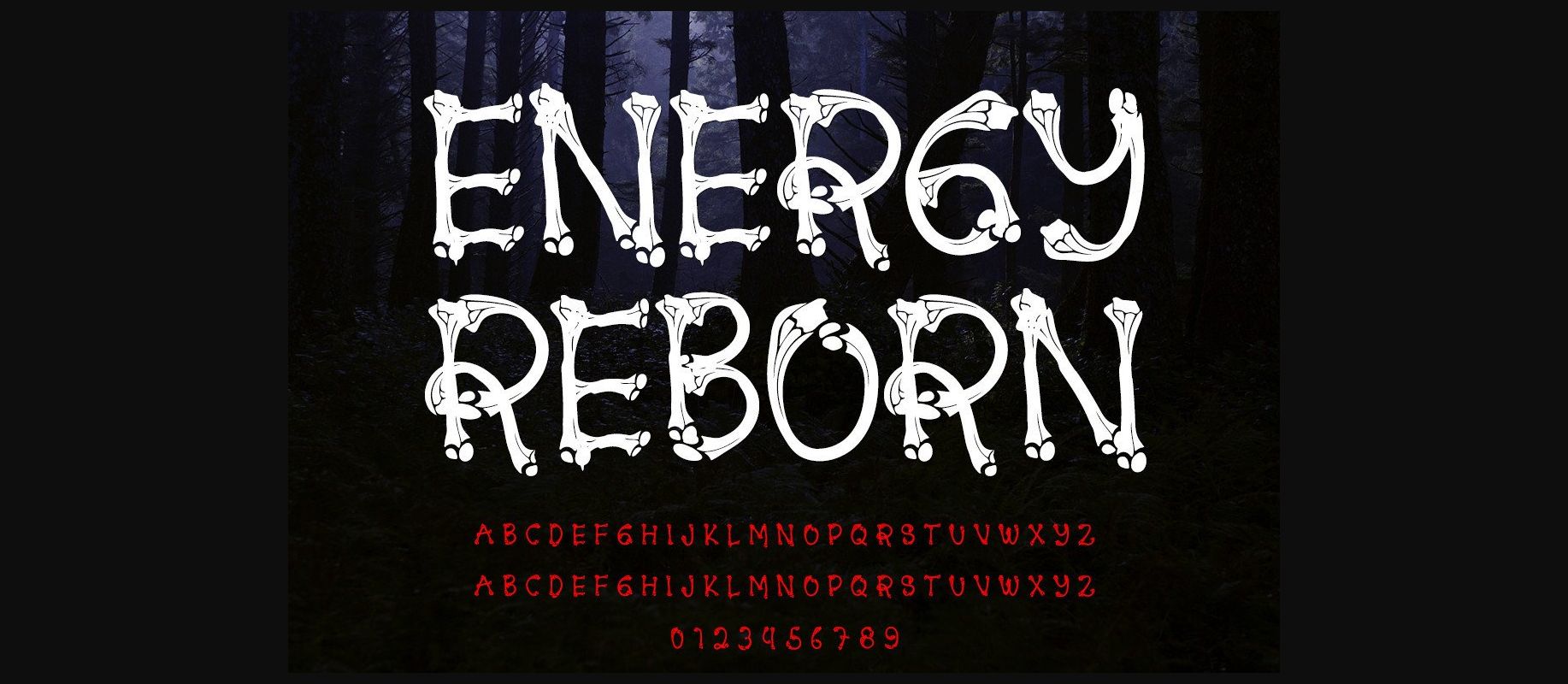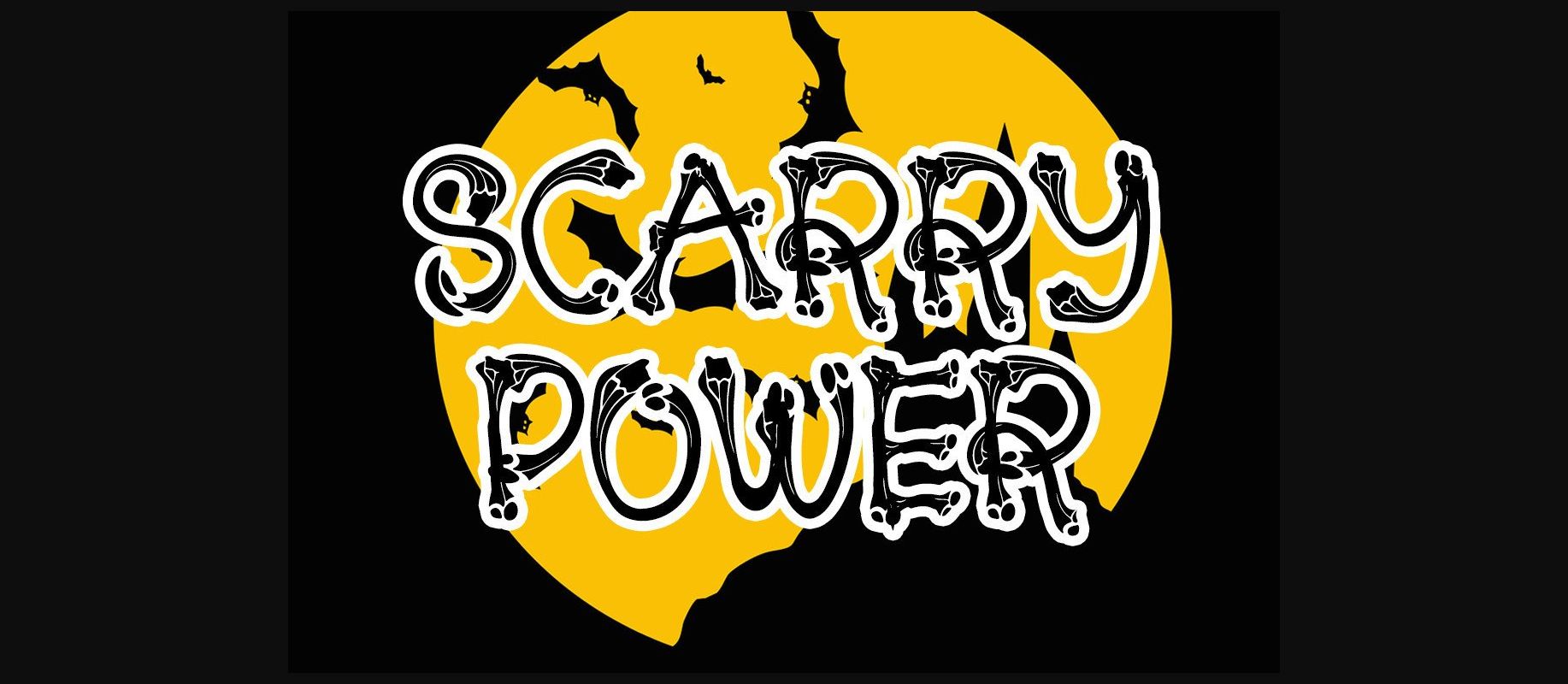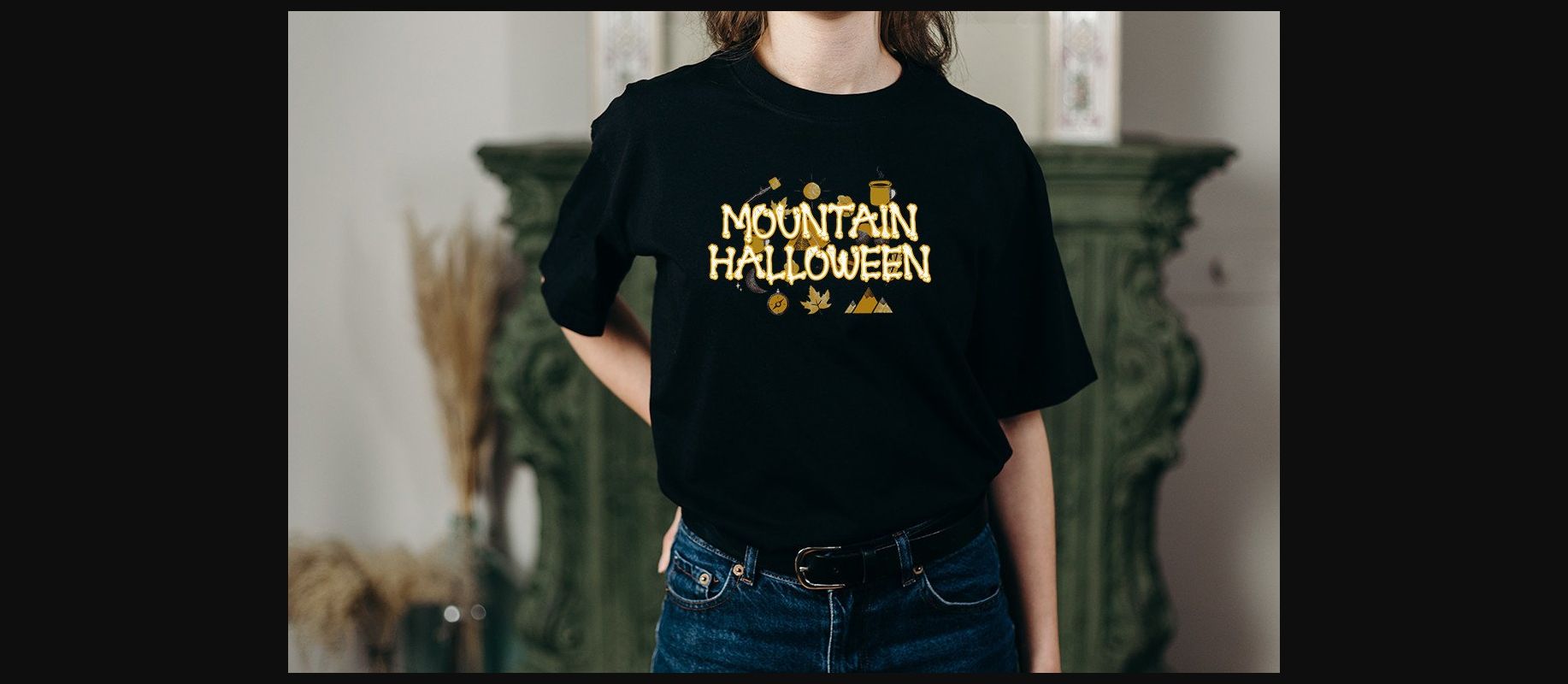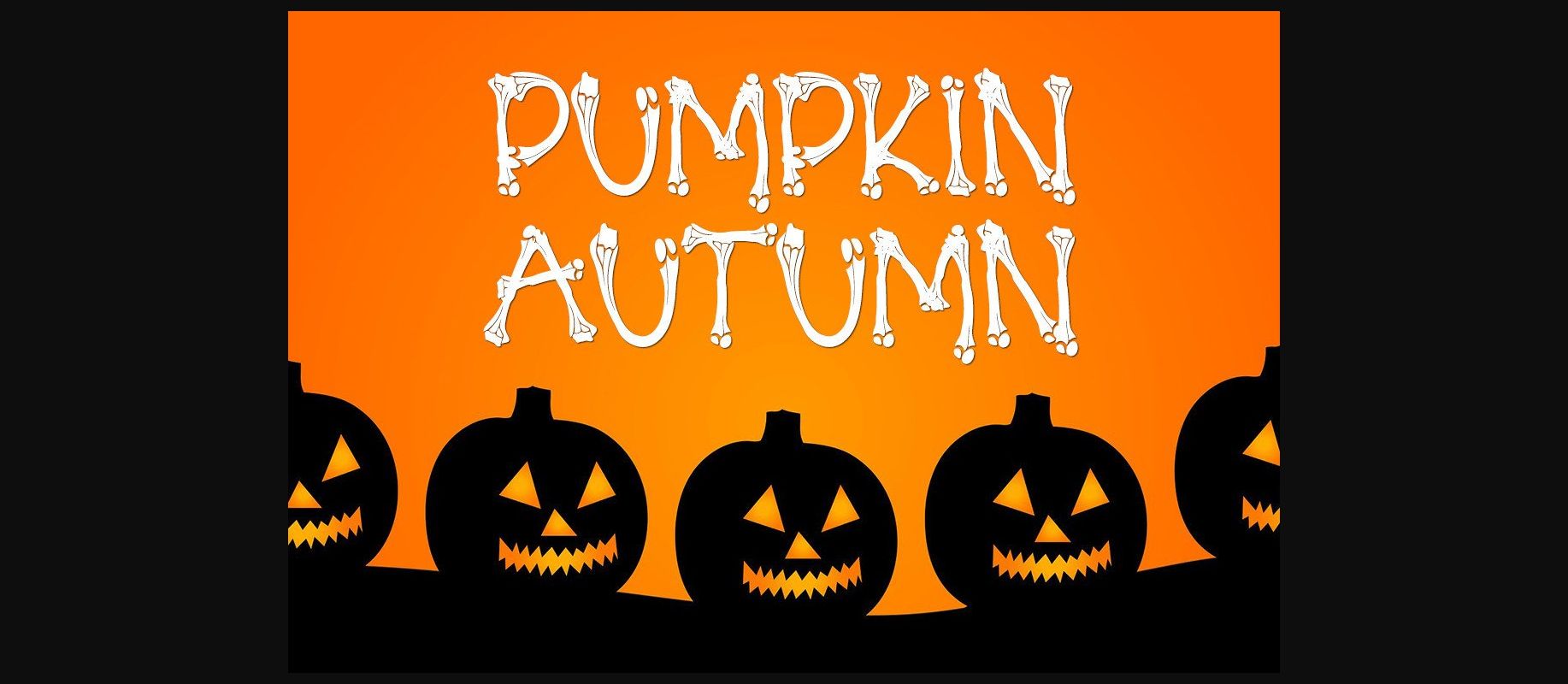
About Energy Reborn Font
Energy Reborn is a beautiful and spooky decorative font. This font will look amazing in a great number of projects, both formal and informal. It will add an incredibly joyful and mysterious touch to your designs. Fonts are designed to simplify your design. By using this font, your business will look more beautiful.